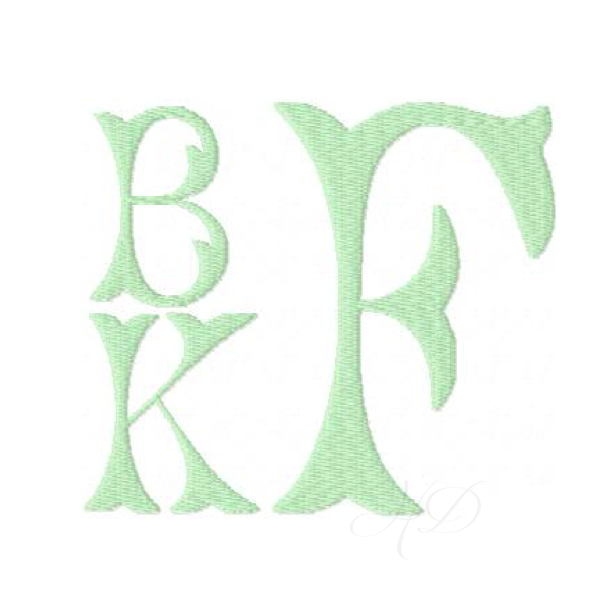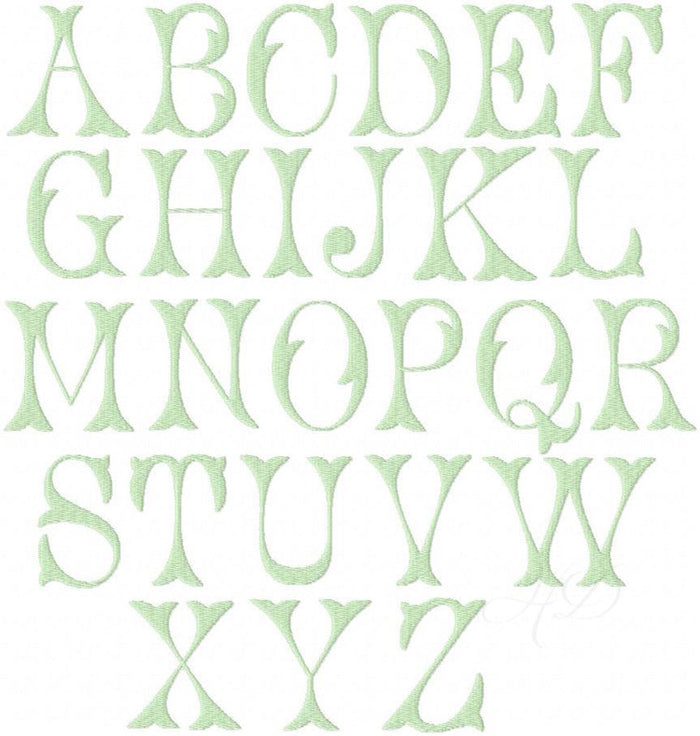
Fairfax Fill Embroidery Font
Introducing the Fairfax Fill Embroidery Font, a stunning single-color embroidery fill monogram featuring 26 uppercase letters crafted for your machine embroidery needs. This exclusive Herrington Design package is available at a wholesale price, making it a budget-friendly choice for crafters.